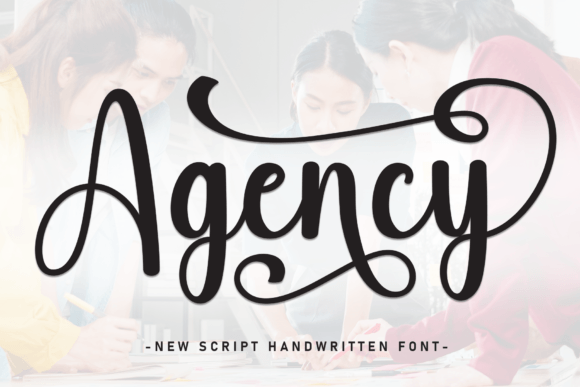
The Sweet and Friendly Agency Font: A Designer’s New Best Friend
I’ll never forget the time I was working on a wedding invitation project, and my client asked for a font that was “fun, yet elegant.” I scoured the internet, tried out countless fonts, but nothing seemed quite right. That was until I stumbled upon Agency, a sweet and friendly handwritten display font that stole my heart. In this article, I’ll share my experience with Agency, its features, and how to make the most of it in your designs.
An Honest Review of Agency Font
What I Love About Agency ✨
• ✅ Cute and Fun: Agency is perfect for adding a playful touch to your designs, making it ideal for wedding invitations, cards, and more.
• ✅ Handwritten Feel: The font’s handwritten texture gives it a personal and approachable feel, perfect for creating a connection with your audience.
• ✅ Elegant yet Casual: Agency strikes the perfect balance between elegance and casualness, making it suitable for a wide range of design projects.
• ⚠️ Limited Use Cases: While Agency is amazing for display text, it may not be the best choice for body text or long-form content.
• ⚠️ Kerning Issues: As with any font, you may encounter kerning issues, especially when using all caps or mixing with other fonts.
The Backstory of Agency Font
Agency was designed with the intention of creating a font that was both fun and elegant. The designer aimed to craft a font that would add a personal touch to any design project, making it perfect for wedding invitations, cards, and more. With its sweet and friendly personality, Agency has become a popular choice among designers and crafters.
Q: What is Agency font best used for?
Agency is ideal for display text, such as titles, headings, and short phrases. It’s perfect for wedding invitations, cards, and any design project that requires a touch of personality.